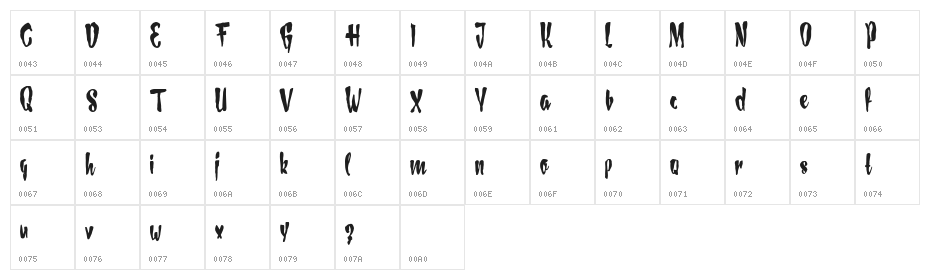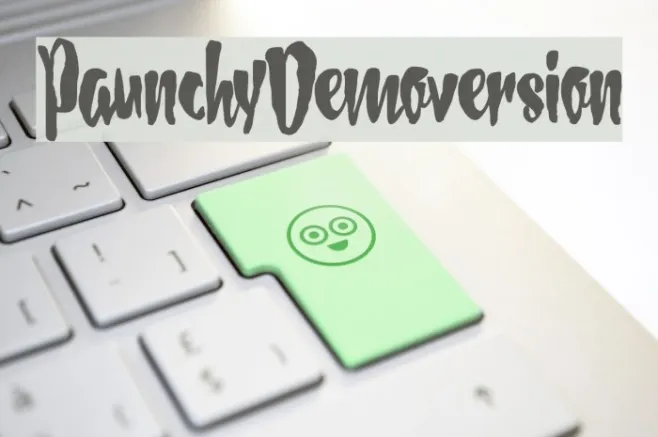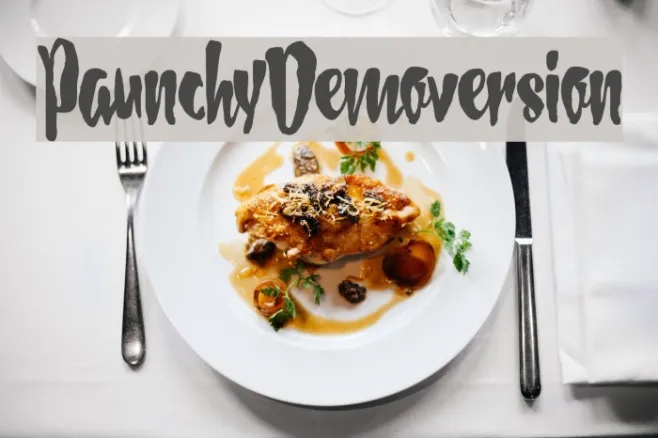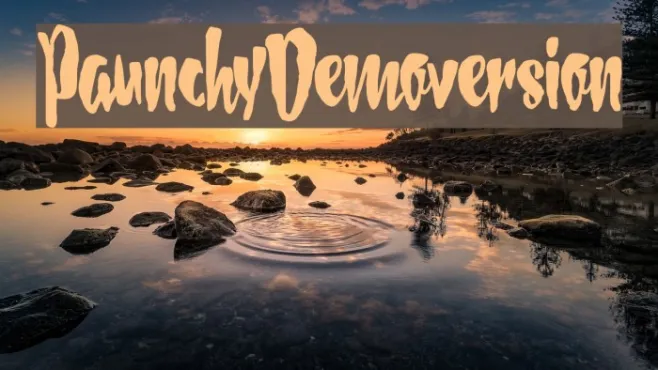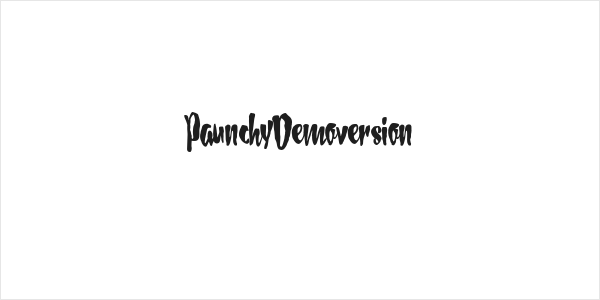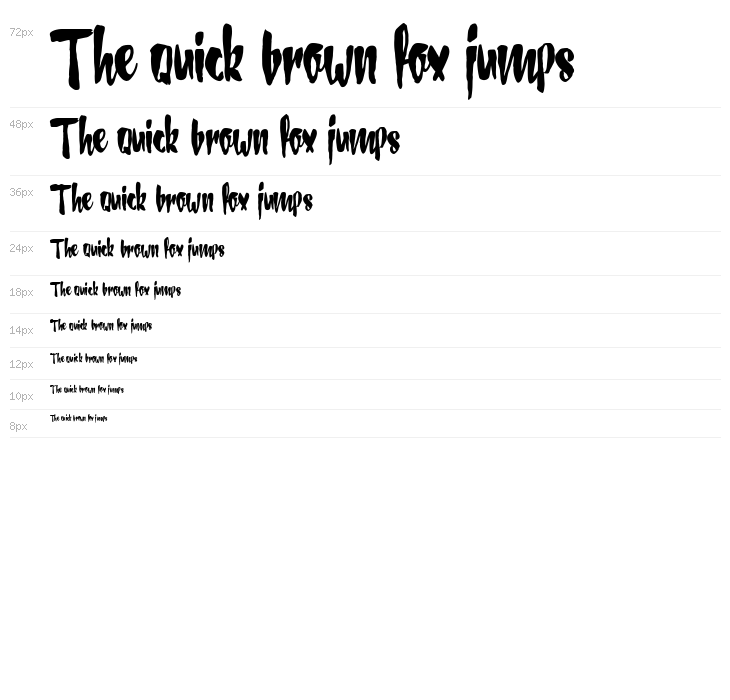
PaunchyDemoversion Font
PaunchyDemoversion Description
This font features a bold and expressive style with a hand-painted appearance, characterized by thick, uneven strokes that give it a dynamic and energetic feel. The letters are slightly irregular, adding a unique and artistic touch. The uppercase and lowercase letters maintain a consistent style, with a playful yet bold presence. The font's overall look is reminiscent of brush lettering, making it ideal for projects that require a creative and informal vibe. The special characters blend seamlessly with the alphabet, maintaining the same artistic flair.
| Proposed Projects | Ideal for creative projects such as posters, album covers, branding, and social media graphics that require a bold and artistic touch. |